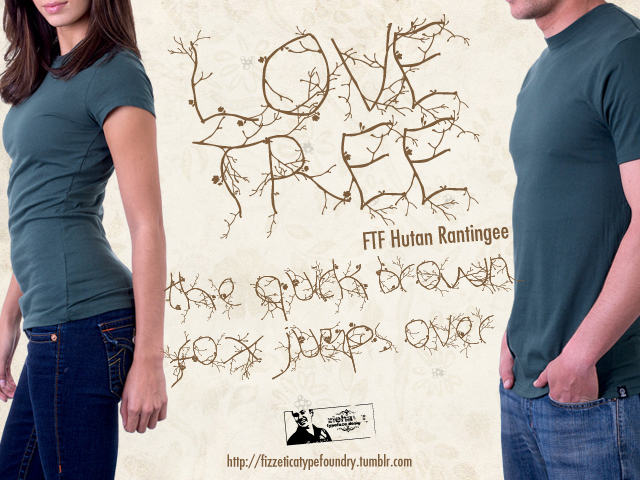
Preview and download FTF Hutan Rantingee Font. Created by Fizzetica Foundry in Fancy Decorative styles with Free for personal use license.
GO GREEN FONT! FTF Hutan Rantingee FREE NOW on Dafont.com for the 1st from Fizzetica Type Foundry Indonesia. Use it for personal use or project Go Green without commercial. For buy & get full set character just send your donation here @My Dafont Profile this font. ONLY $14 You can get full set & for commercial use. |